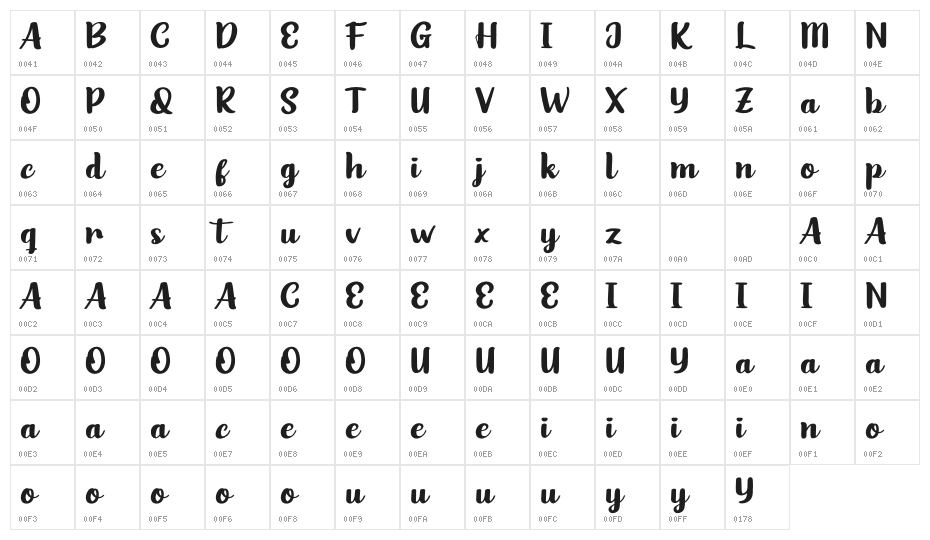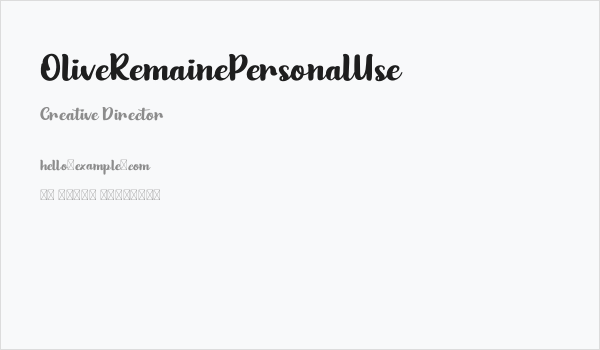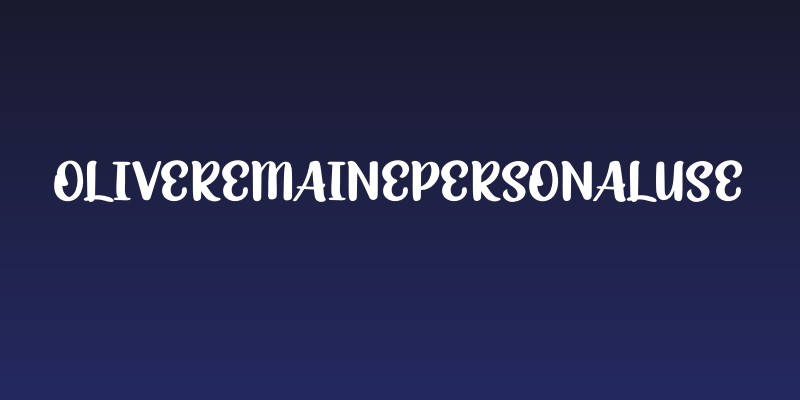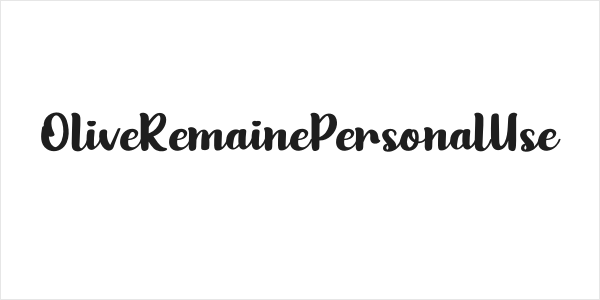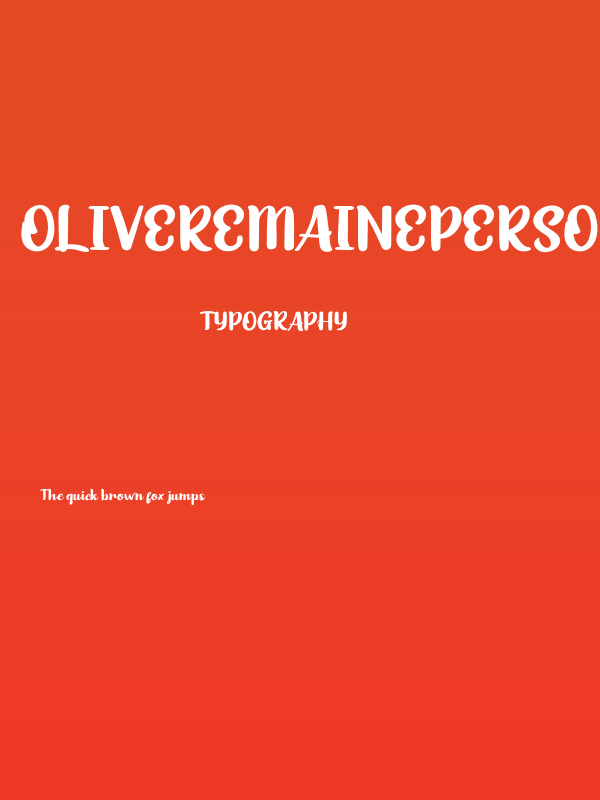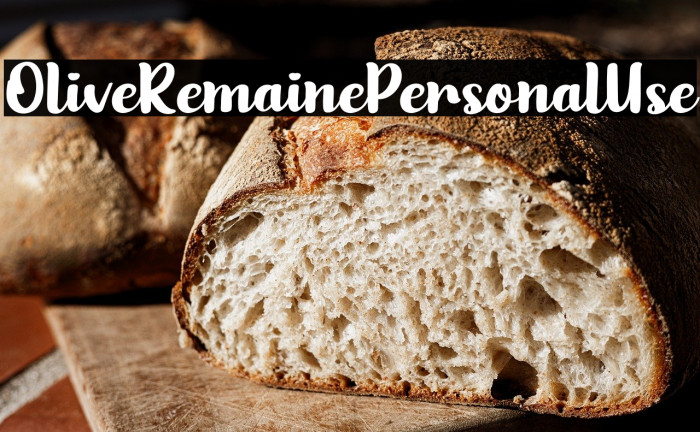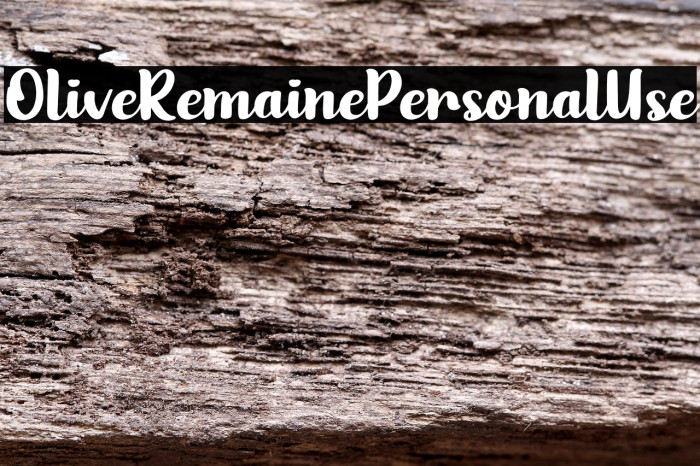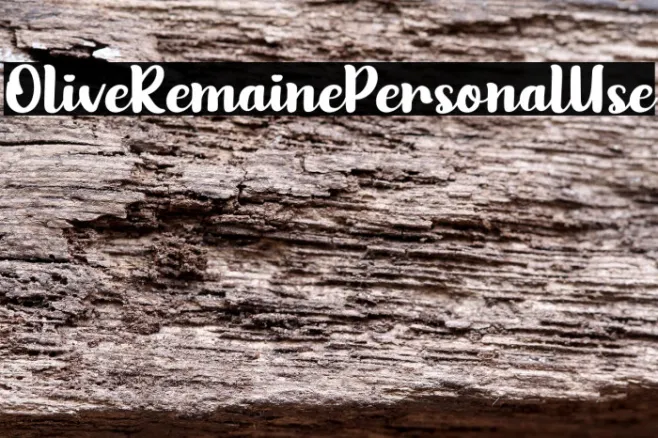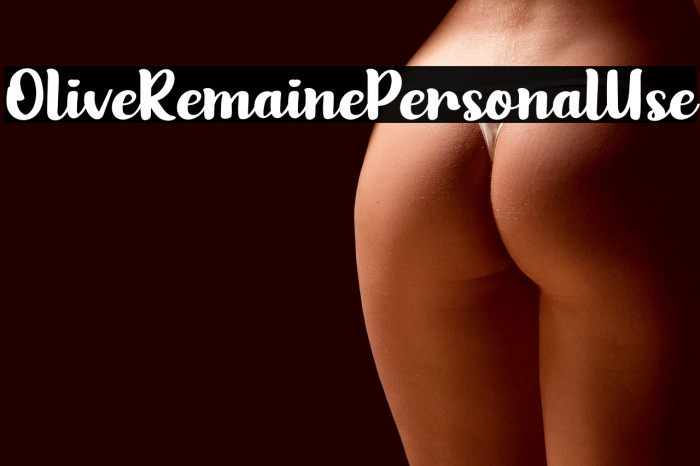
OliveRemainePersonalUse Font
OliveRemainePersonalUse Description
This font features a bold and expressive script style, characterized by its flowing, cursive letterforms. The uppercase letters are slightly more structured, maintaining a balance between elegance and readability. The lowercase letters exhibit a smooth, continuous flow, enhancing the handwritten feel. The strokes are thick and consistent, providing a strong visual impact. The font's playful yet sophisticated appearance makes it suitable for creative projects. Its unique style is accentuated by the slight slant and rounded edges, adding a touch of warmth and approachability.